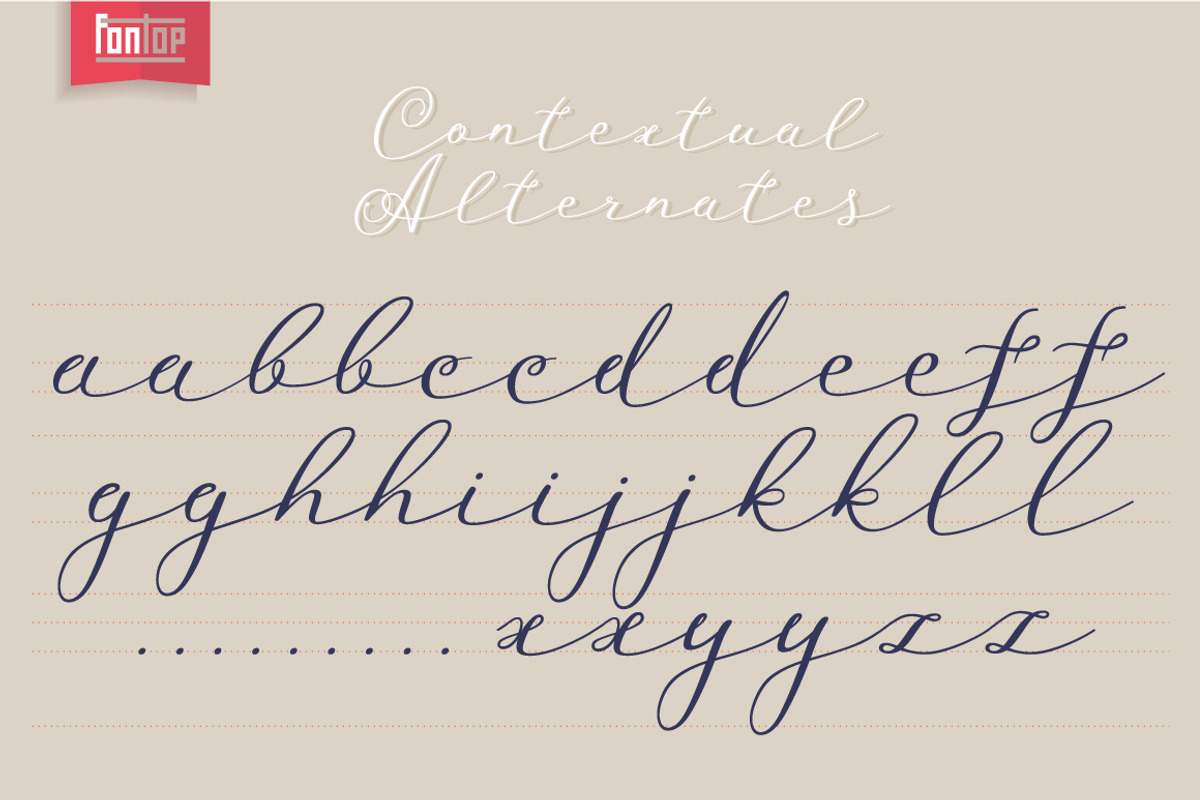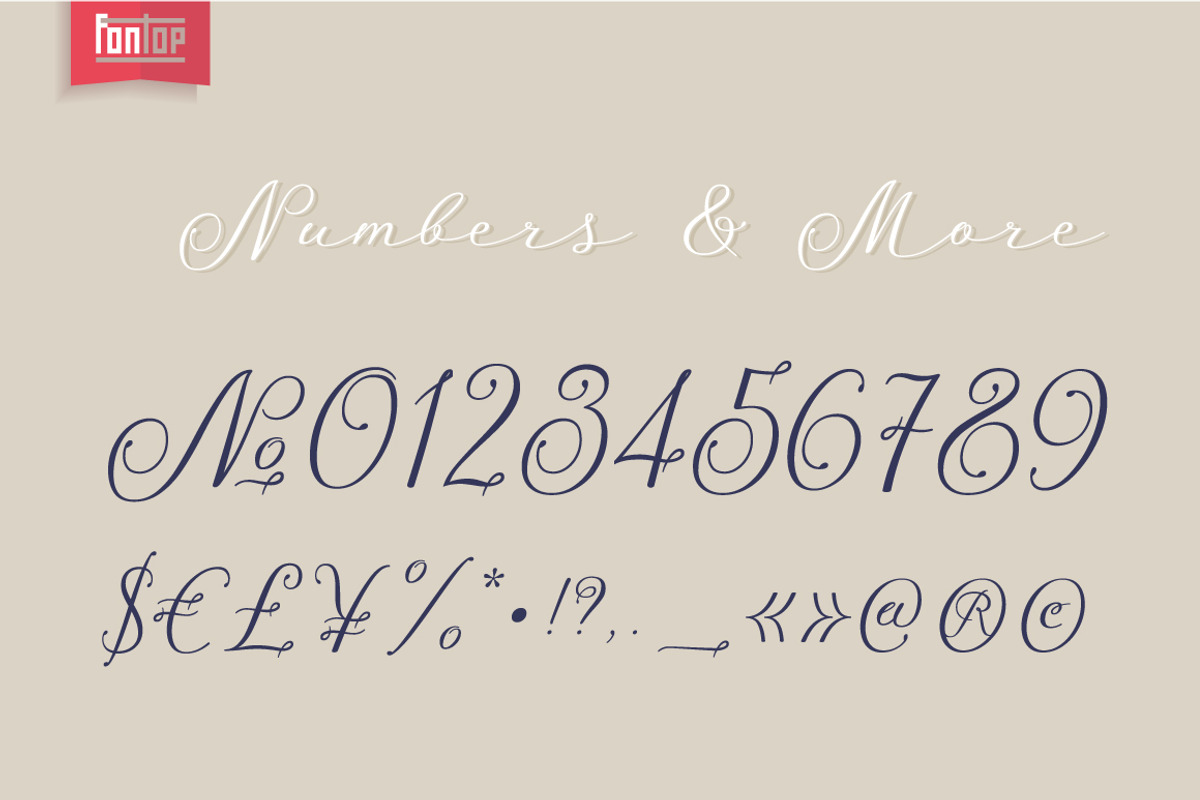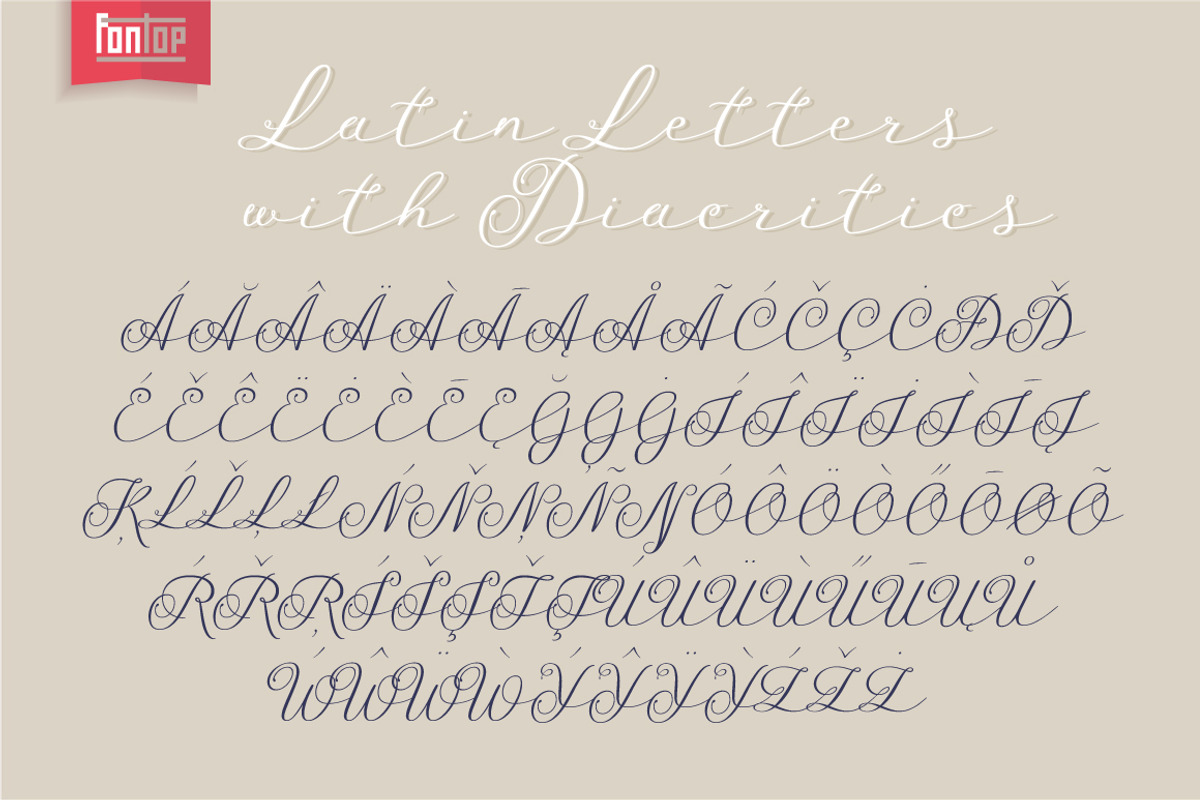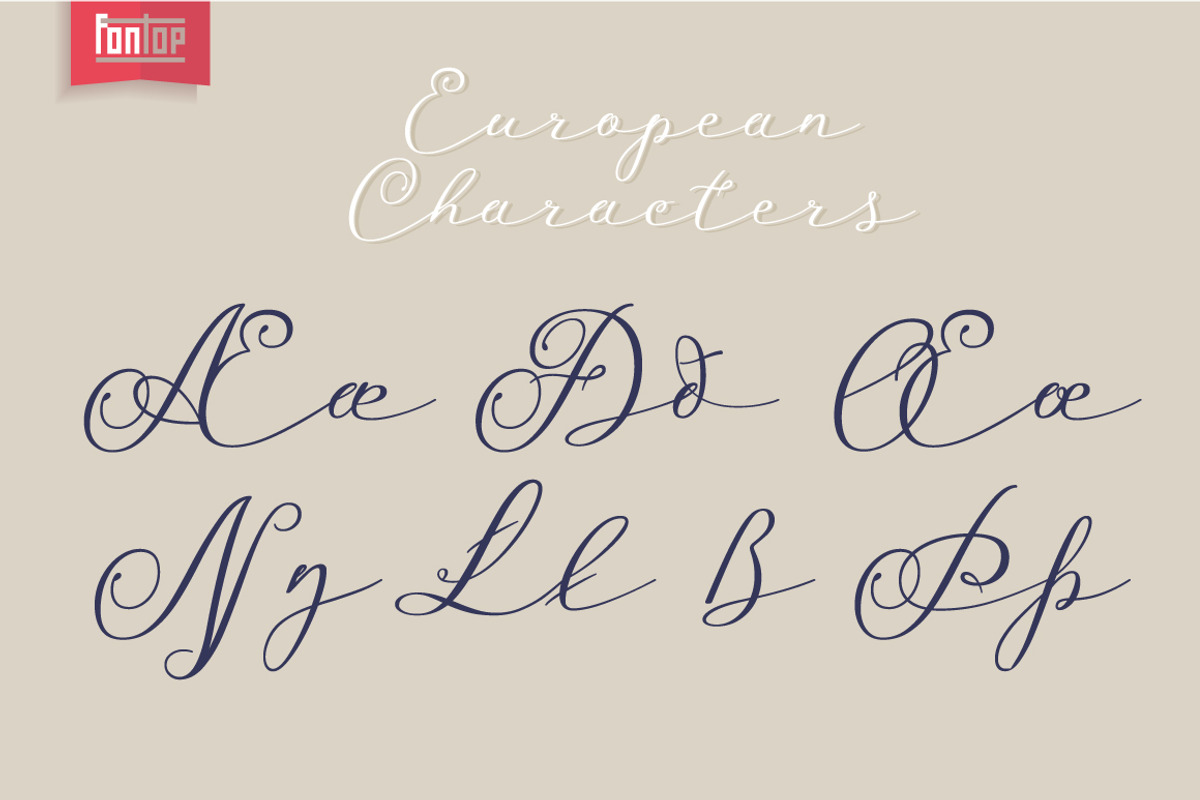
Presto Script
Welcome my new Presto Script font. It’s a script typeface which has contextual alternates for additional authenticity as open type feature. If you want to manually change letters in your headline or short text, stylistic alternates are available through glyph panel (you need to disable contextual alternates option). Really very easy to use! The font is perfect for quotes, wedding branding, headings, social media texts, blogs and much more.
The font has Latin multilingual support as well as uppercase letters, lowercase letters, numbers and basic punctuations.